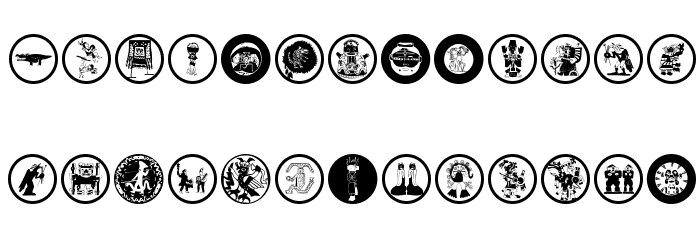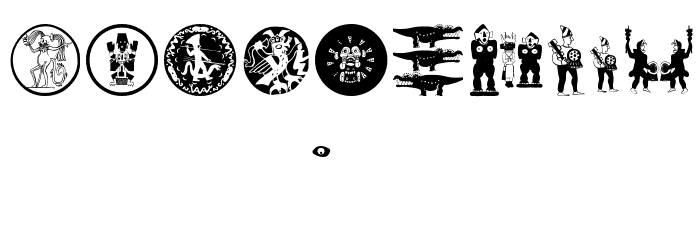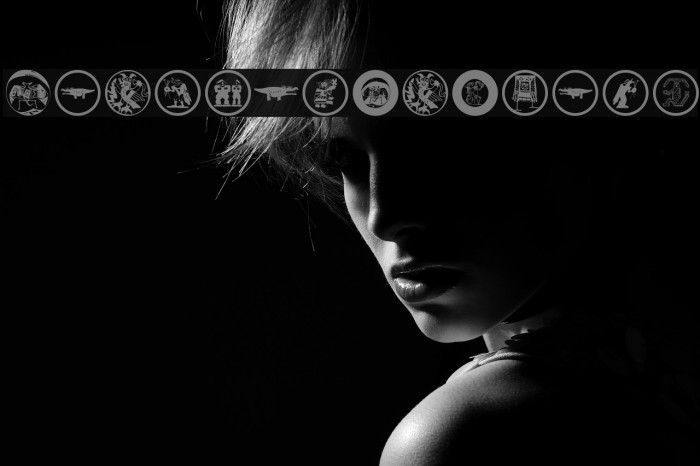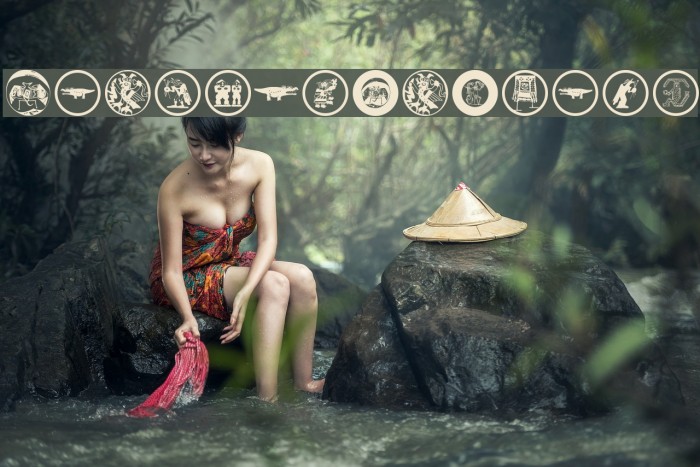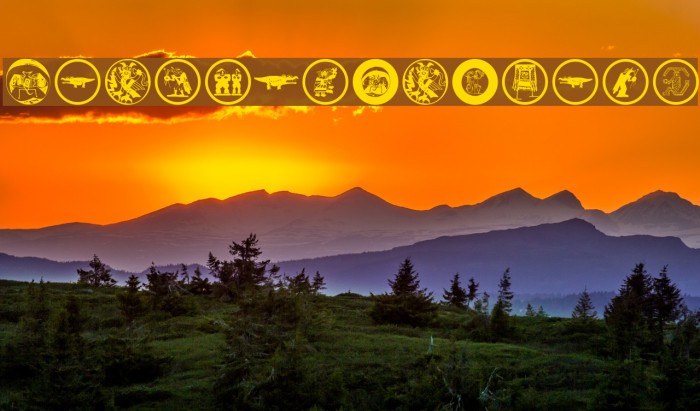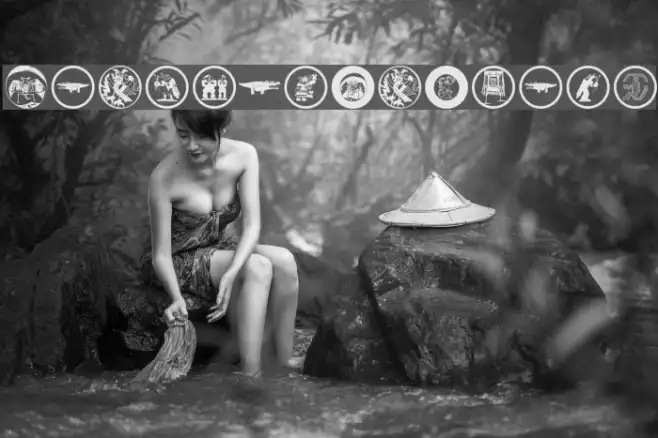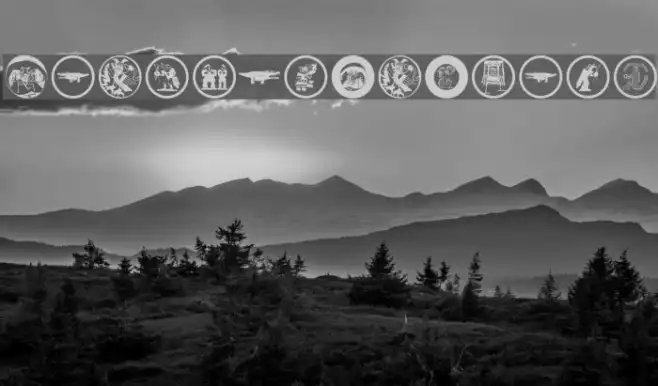
EarlyAmericans Font
This is a decorative font featuring intricate illustrations inspired by early American art and culture. Each character is represented by a unique, detailed image that reflects historical and cultural motifs. The designs are bold and visually striking, with a high level of detail that captures the essence of traditional art forms. The characters are enclosed in circular frames, adding a cohesive and uniform appearance to the set. This font is not suitable for standard text but serves as an artistic representation of cultural heritage.
A decorative font with intricate illustrations inspired by early American art.
- Proposed Projects: Ideal for cultural exhibitions, educational materials, themed posters, and artistic projects that aim to celebrate or educate about early American history and art.
- Use Case: Logos, Posters, Artistic Projects